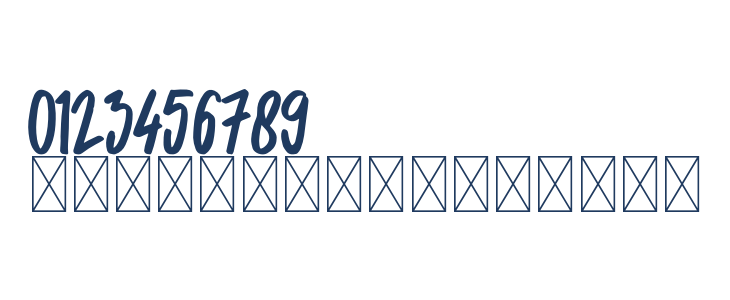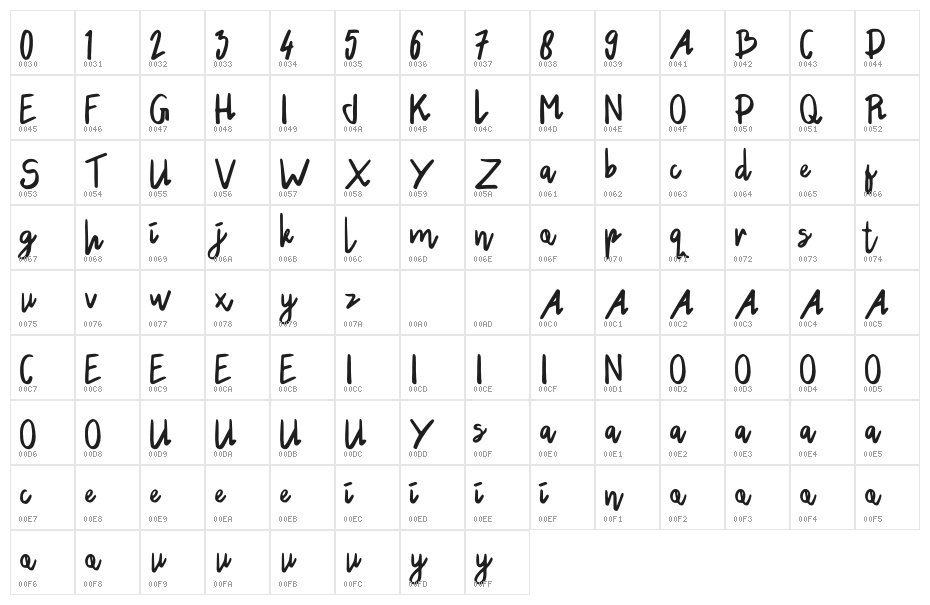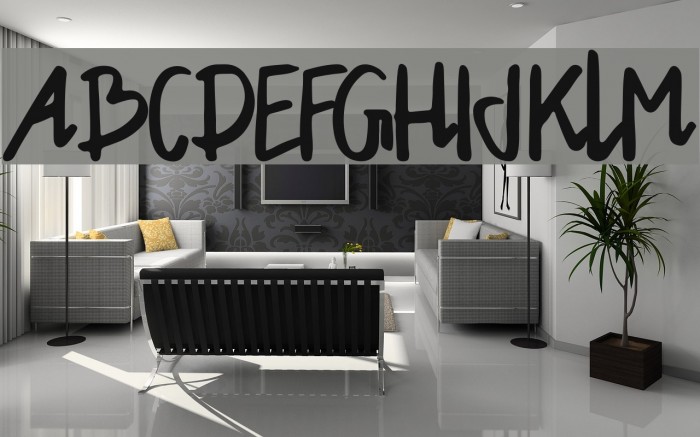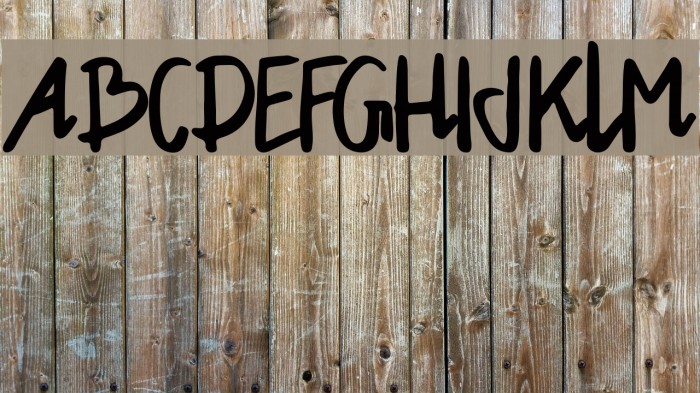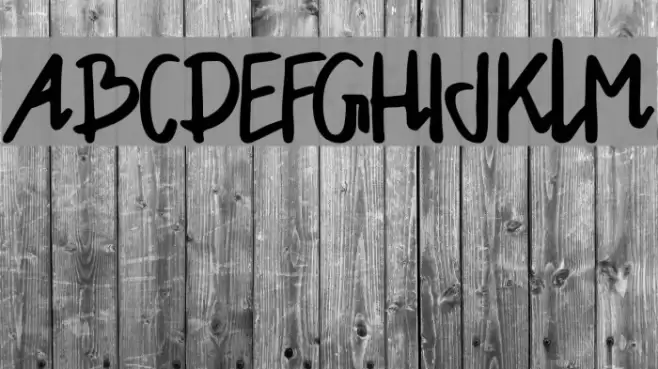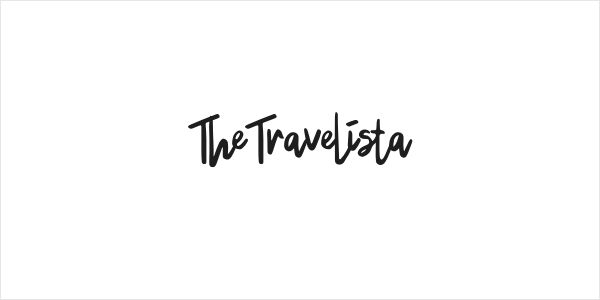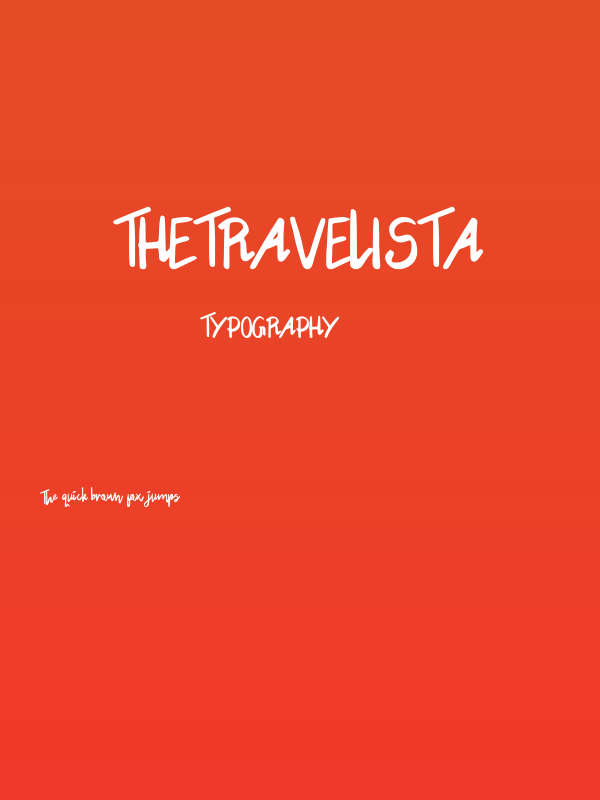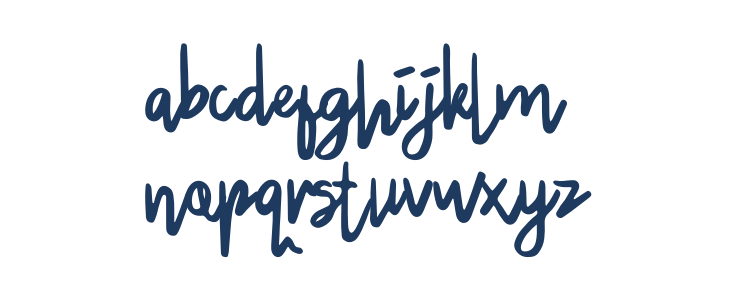
TheTravelista Font
TheTravelista Description
This font features a lively and dynamic handwritten style, characterized by its fluid strokes and playful curves. The uppercase letters are bold and assertive, while the lowercase letters maintain a consistent flow, enhancing readability. The numbers are equally expressive, matching the overall energetic vibe of the font. The lack of special characters suggests a focus on simplicity and elegance. Its unique style makes it suitable for projects that require a personal touch or a creative flair.
| Proposed Projects | Ideal for greeting cards, invitations, personal branding, and creative projects that require a handwritten touch. |